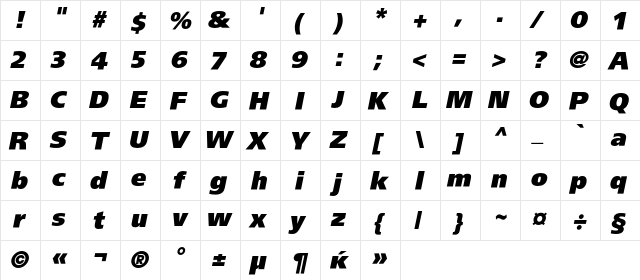
AGForeignerXC Italic
Design Context for AGForeignerXC Typeface
AGForeignerXC takes a measured approach to typography — its balanced proportions and neutral character make it a reliable workhorse for both digital and print work. The slanted form adds forward momentum and visual energy.
Pro Tip: Try AGForeignerXC for annotation and caption copy alongside an upright companion — the contrast in angle creates a dynamic but ordered typographic system.